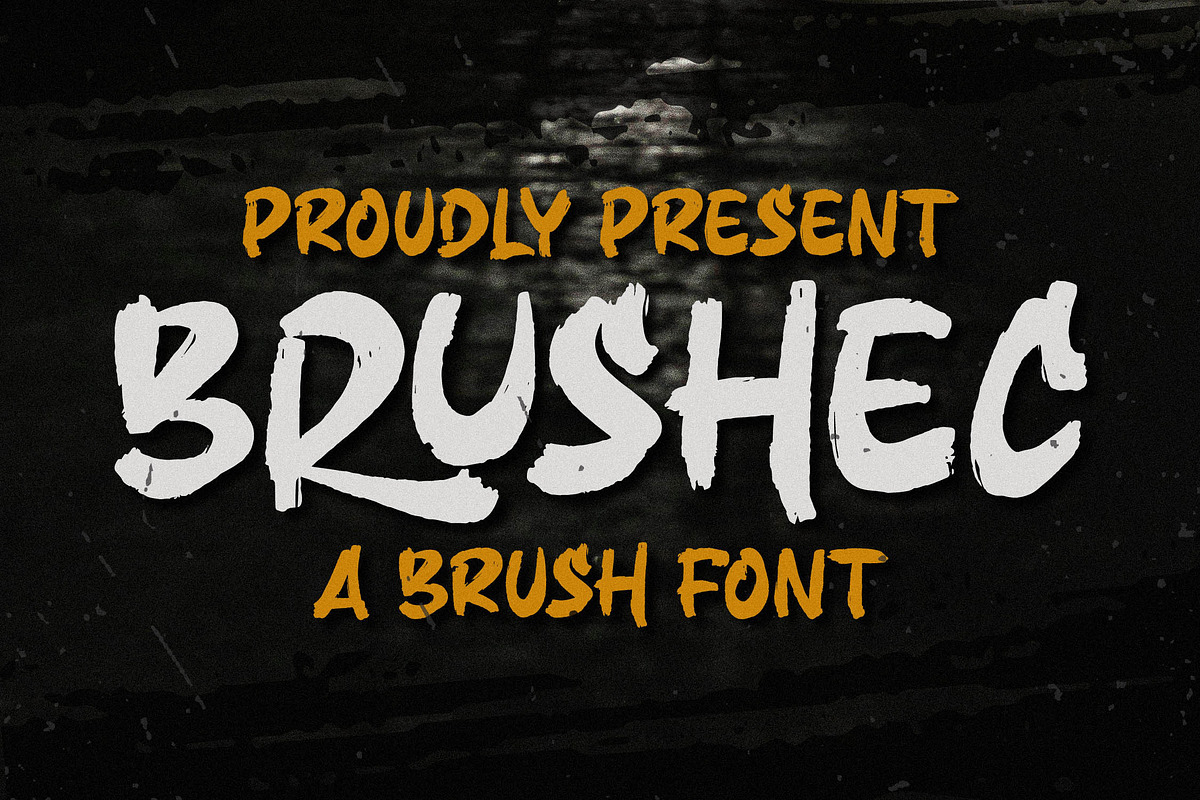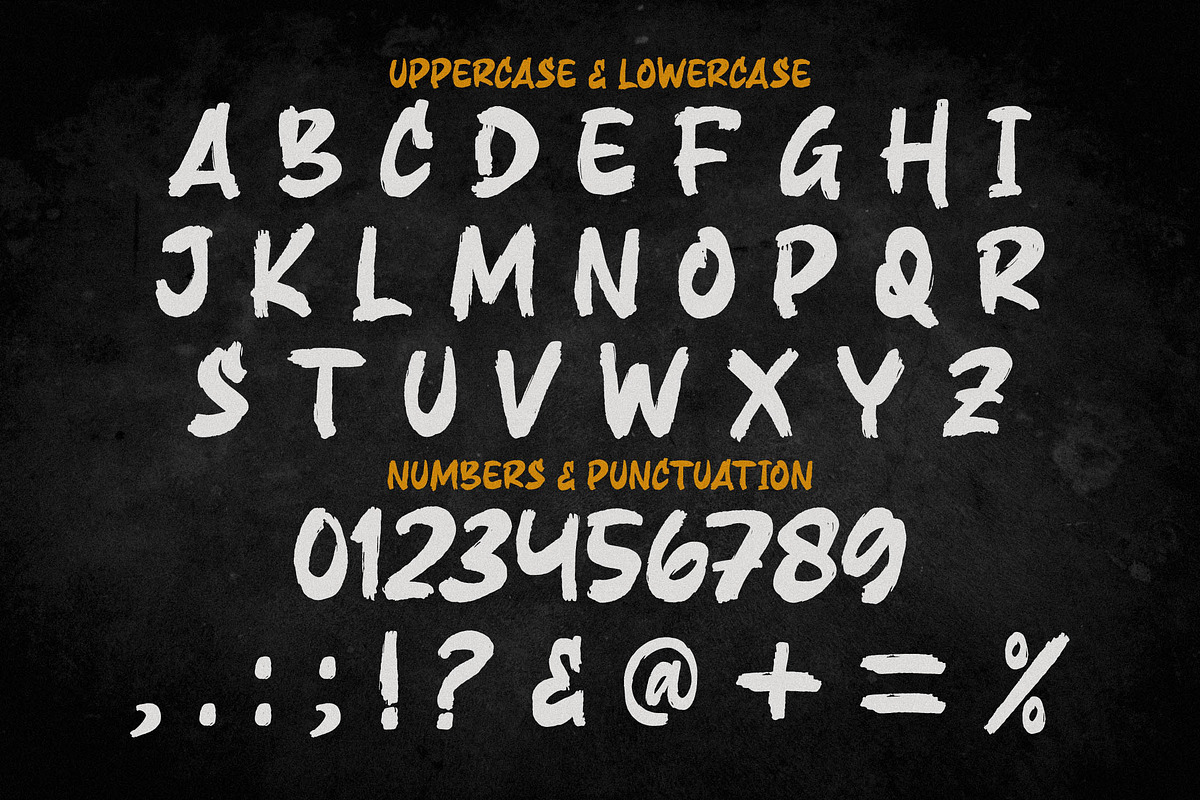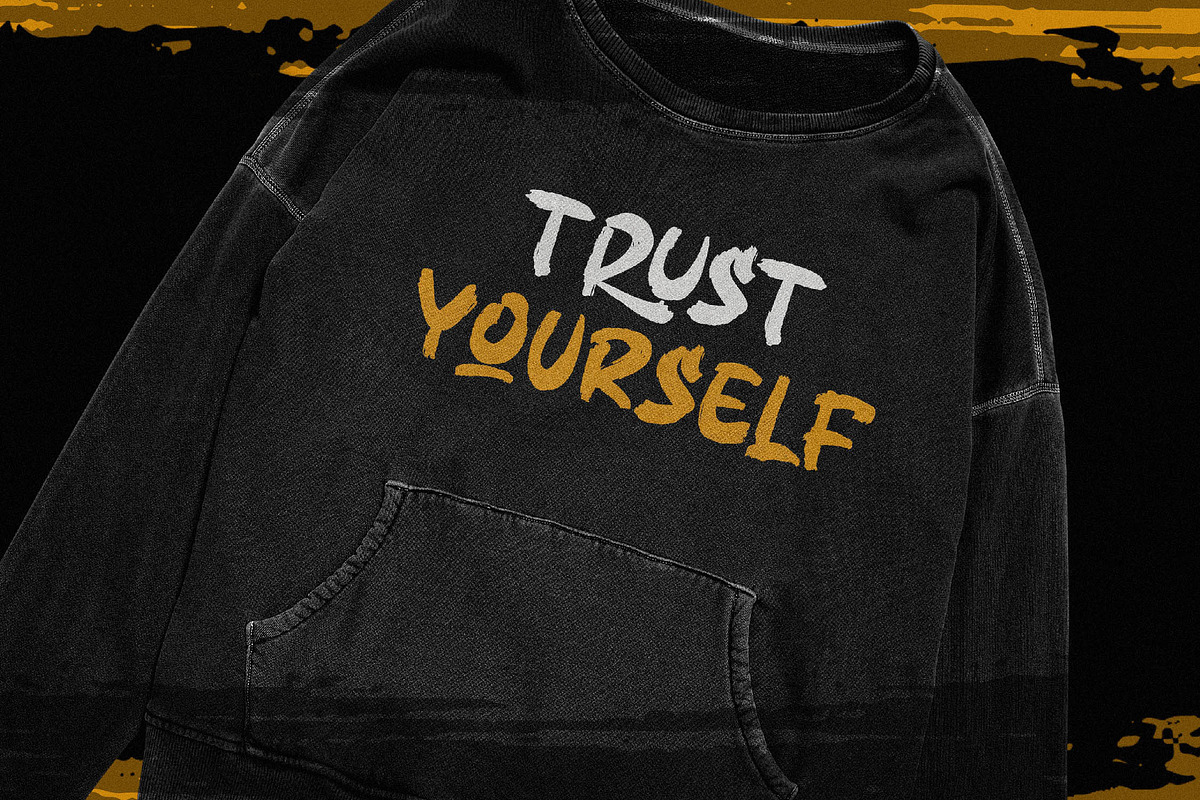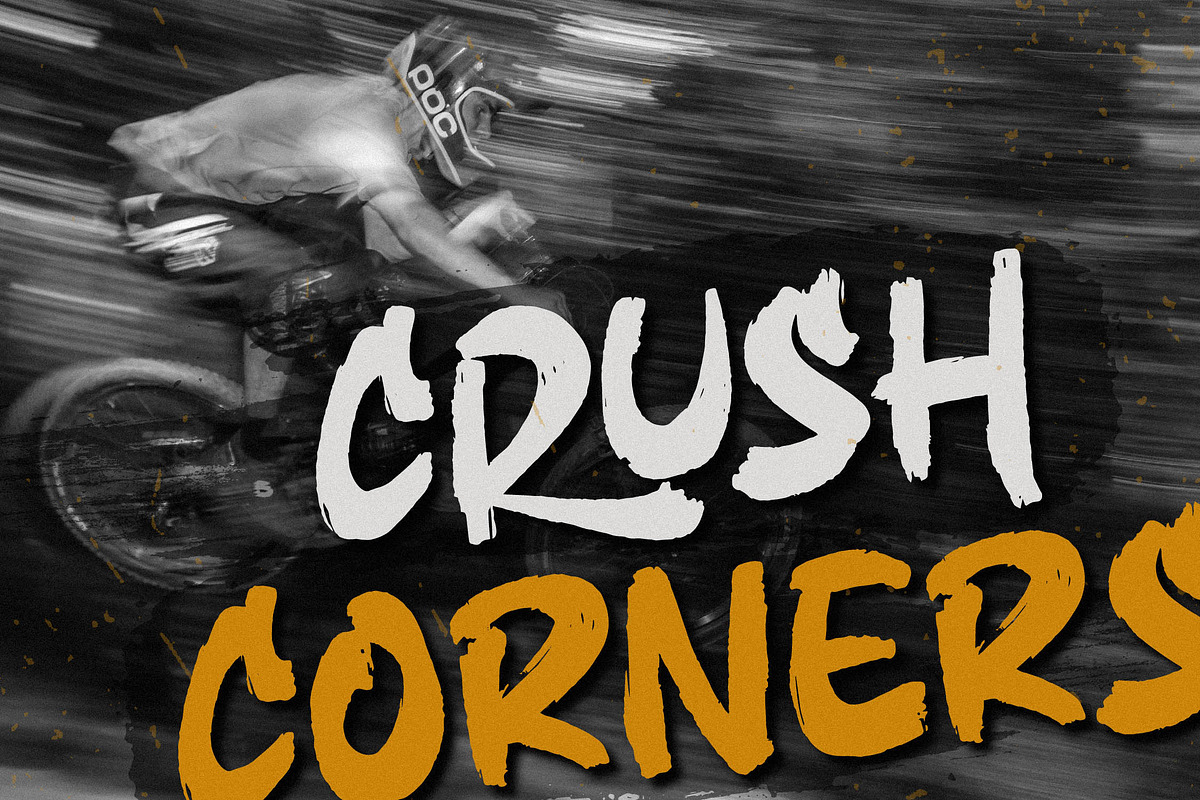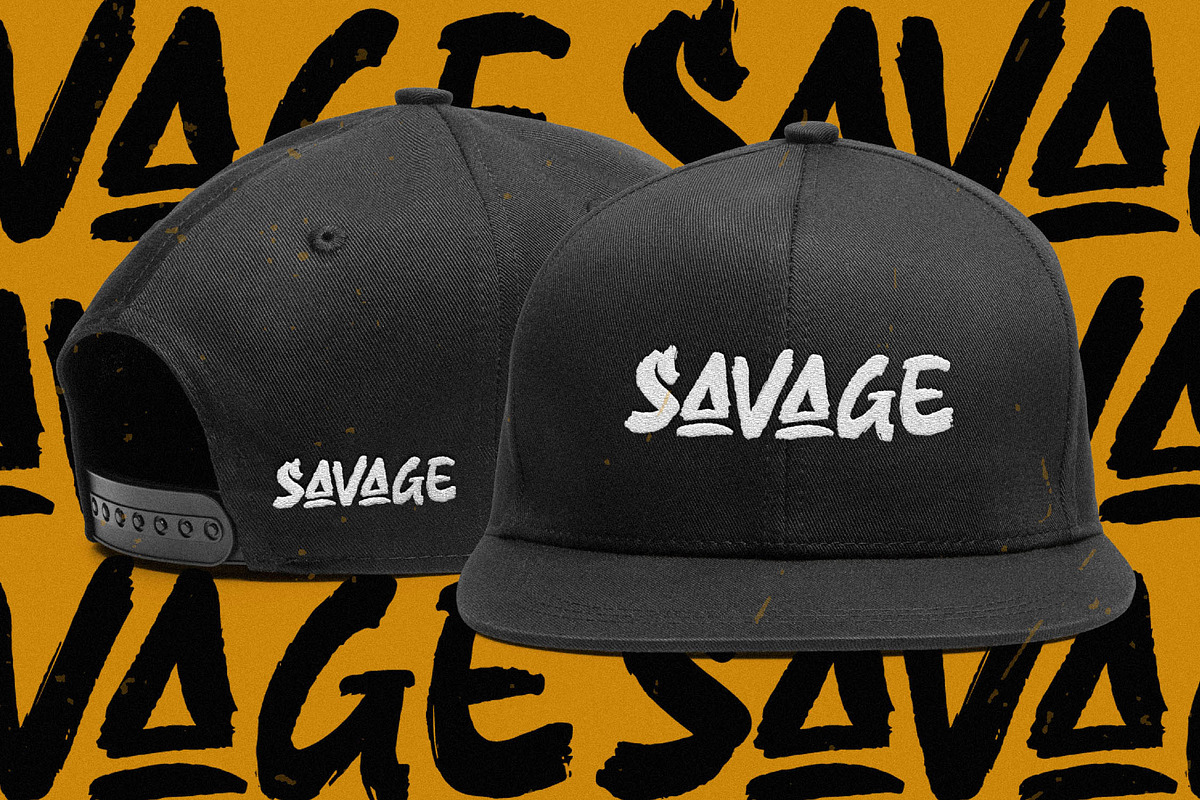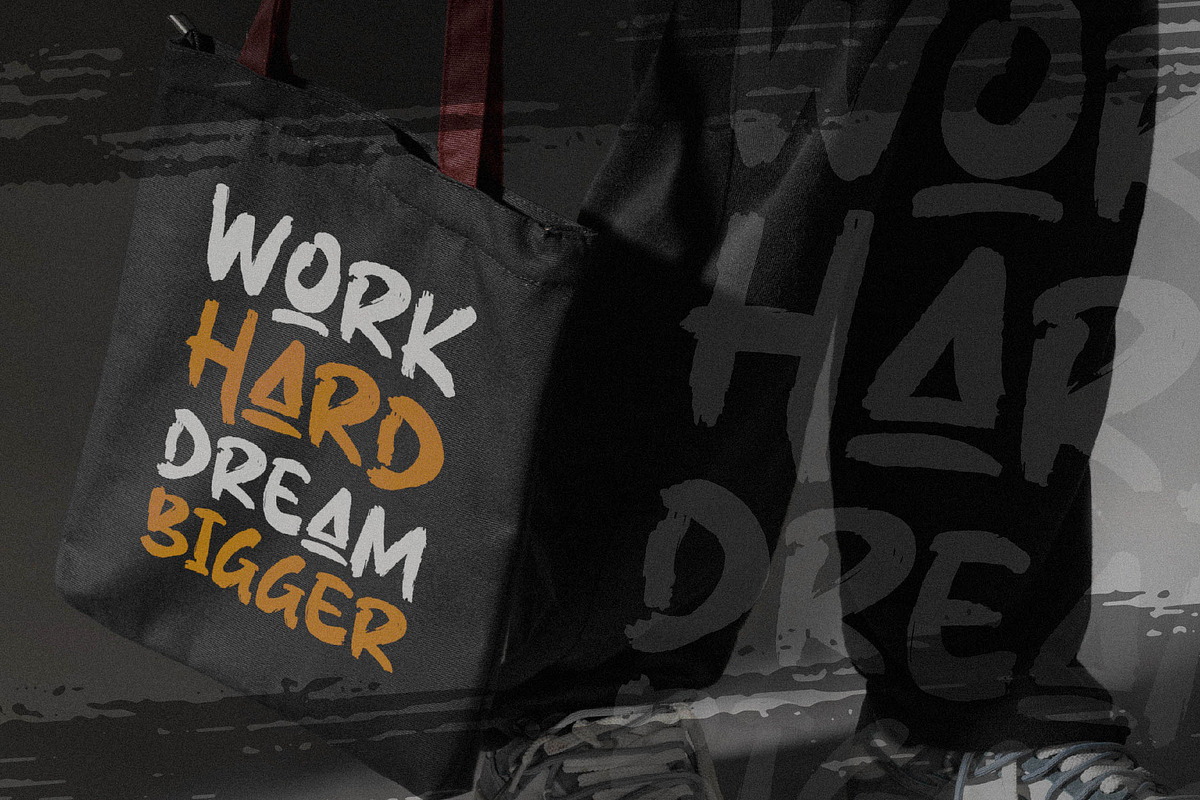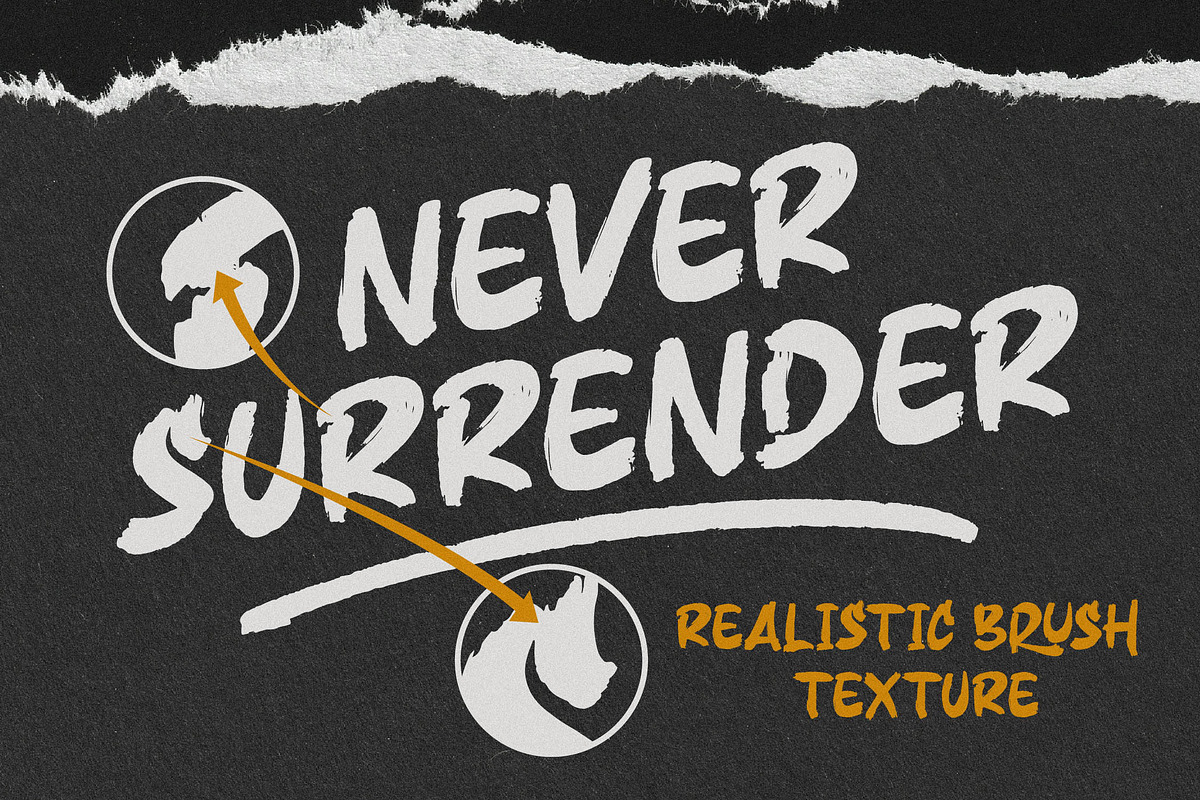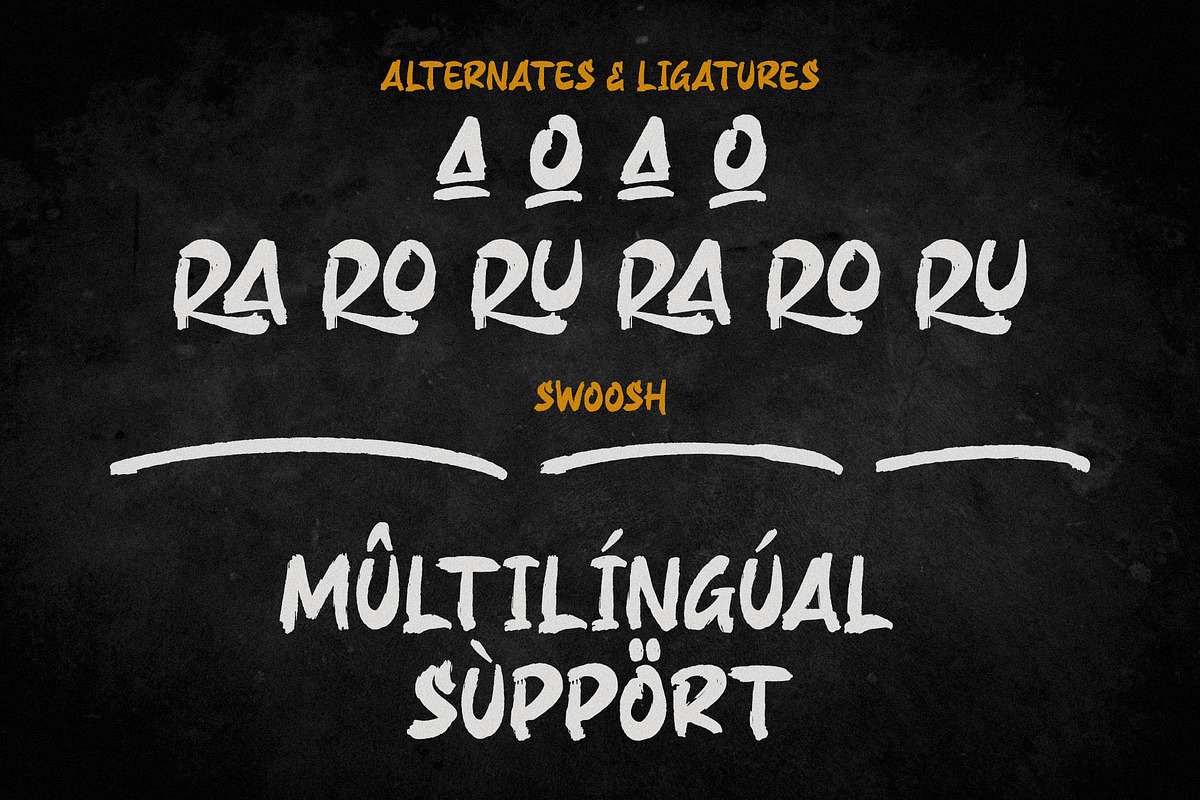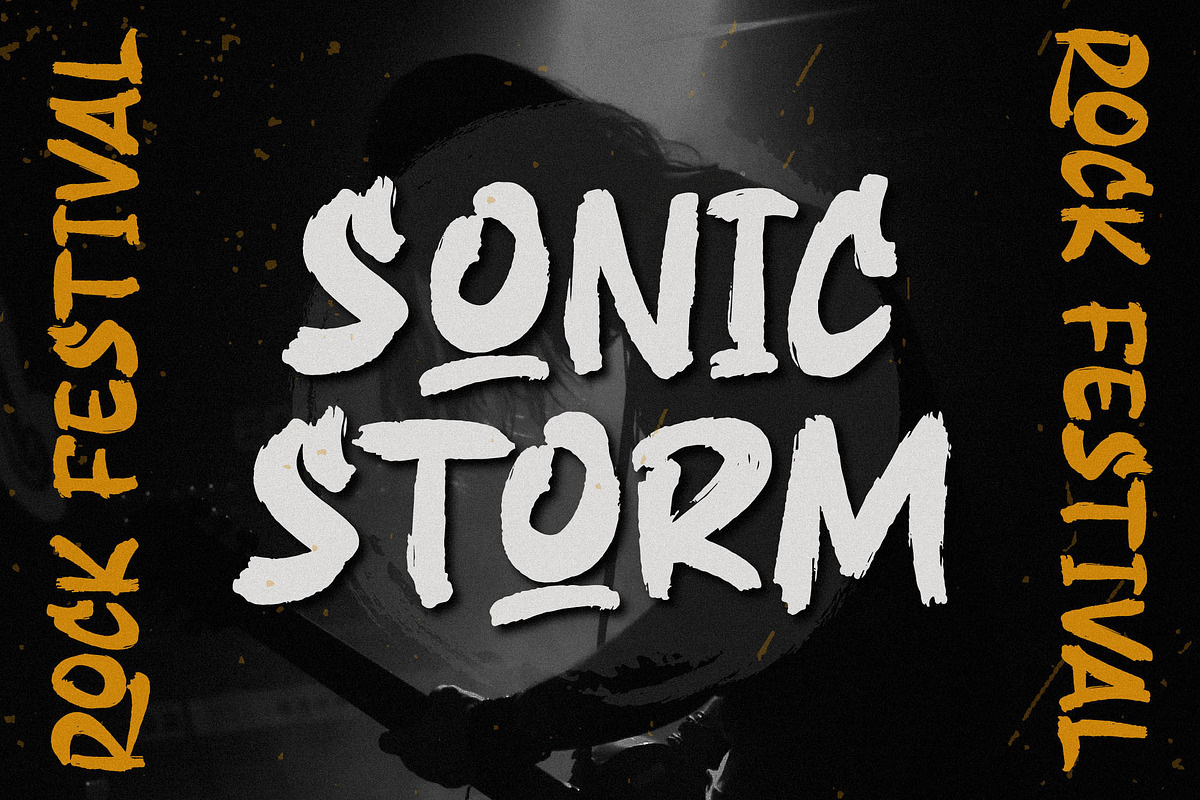
Brushec - Brush Font
Brushec is a bold and textured brush font that brings a handcrafted, expressive touch to your designs. Created with rough brush strokes, this font is perfect for eye-catching projects like logos, posters, merchandise, album covers, branding, streetwear, and social media graphics.
Its raw and edgy appearance makes Brushec ideal for creatives who want to add personality and energy to their work. Whether you're designing for apparel brands or making DIY projects, this brush font delivers a powerful handmade look with authentic texture.
- All Capitals
- Stylistuc Alternates
Ideal for:
- Branding & logo design
- Streetwear & merchandise
- Album Covers
- Posters & packaging
- Urban-style Typography
Add a raw and expressive touch to your designs!